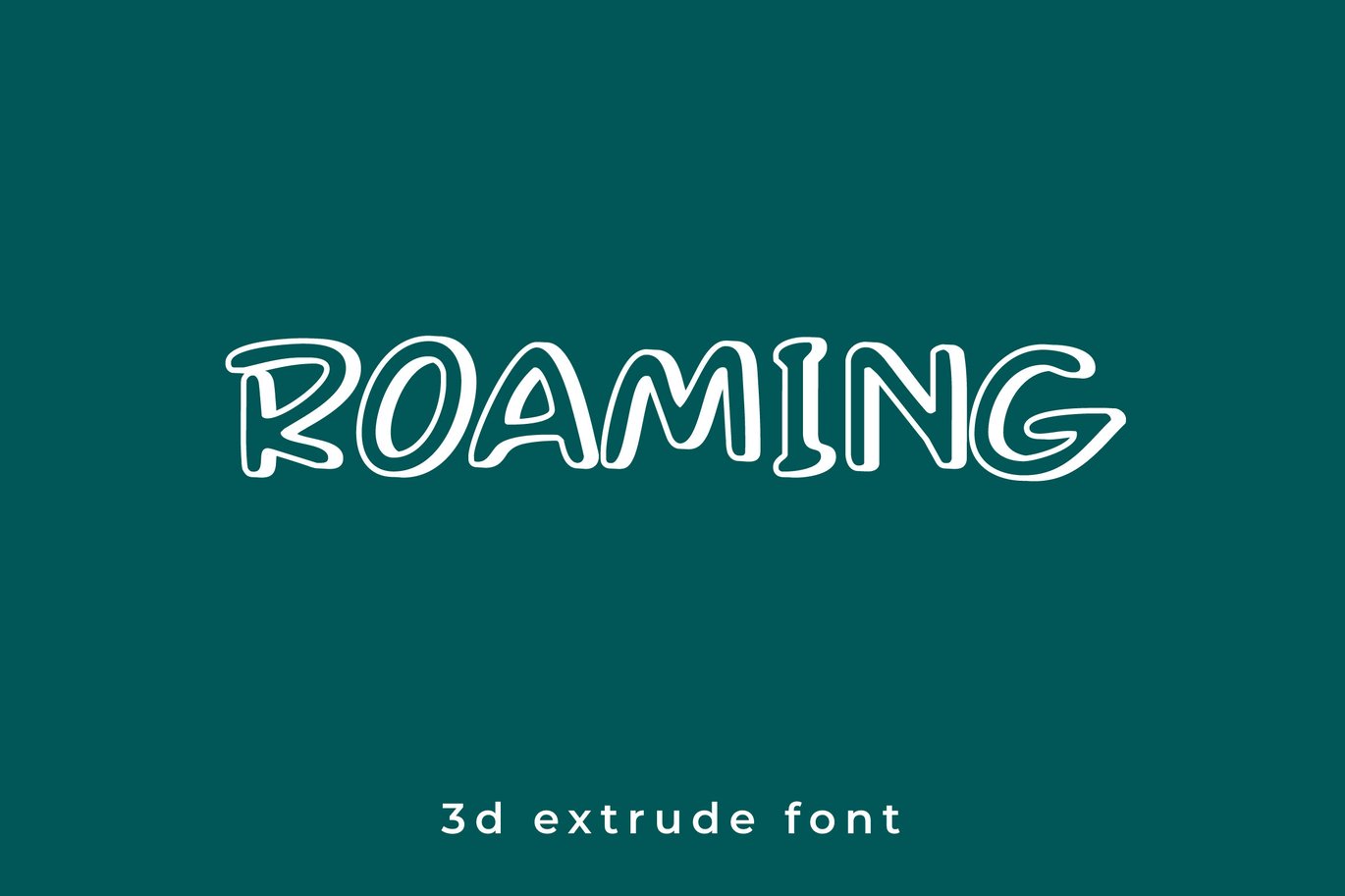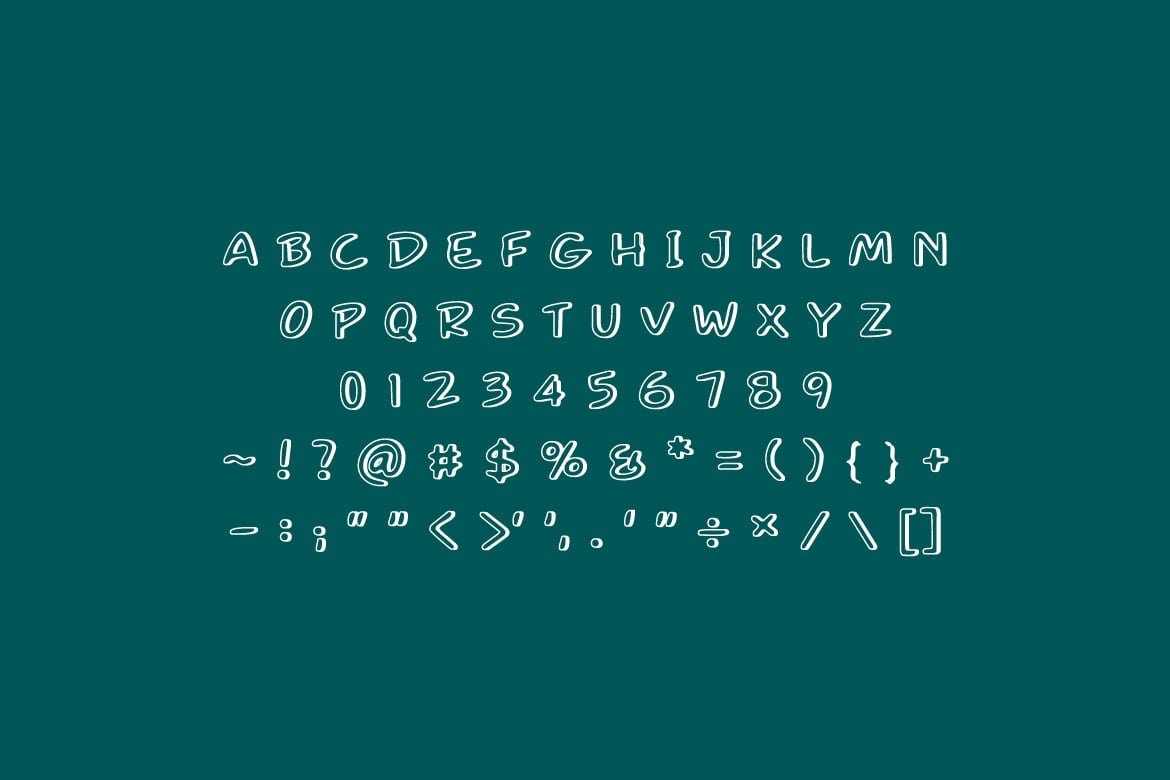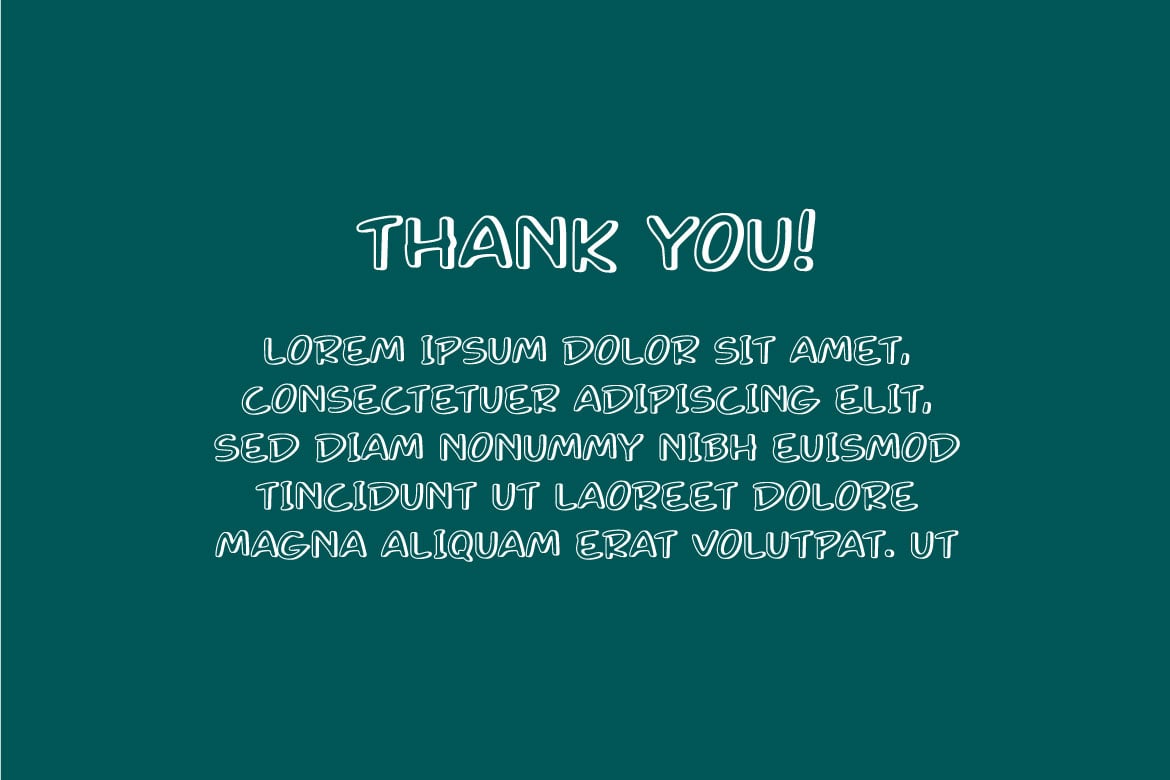
Roaming – 3D Font
ROAMING is a modern 3D display font. This font brings modern futuristic ambience in each word.
Roaming can be used in any works such as book cover, music cover, children book, poster, advertisement, social media content, logo and many more.